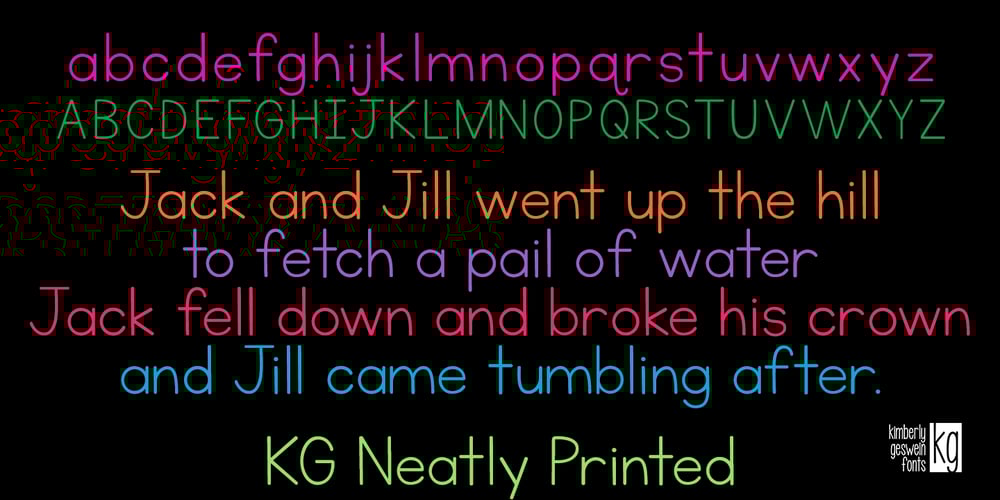
KG Neatly Printed Font Family was designed by Kimberly Geswein and published by Kimberly Geswein. KG Neatly Printed contains 1 styles and family package options. This neat, handwritten font is intended for educators who create teaching resources for children. It is highly legible for new readers and is thin enough to be used for the body of text on student-read documents.